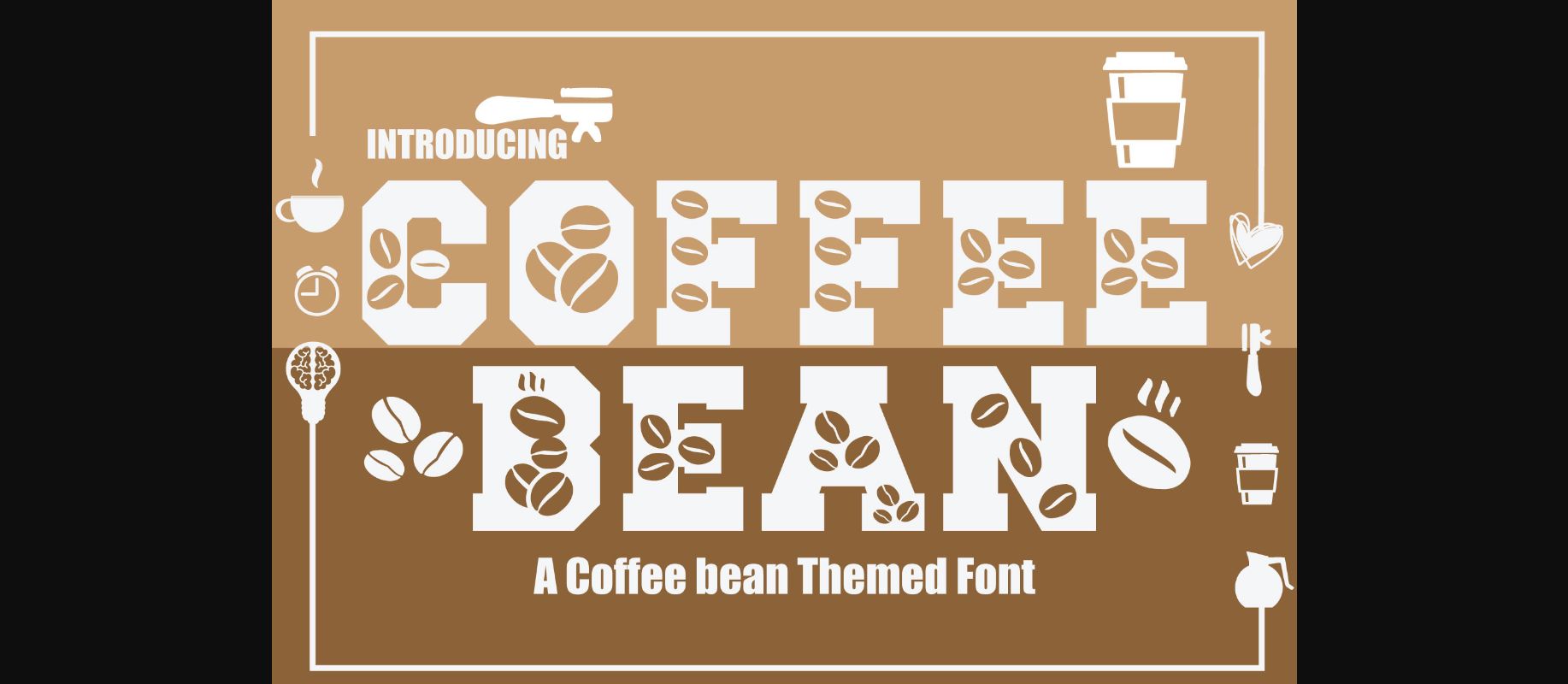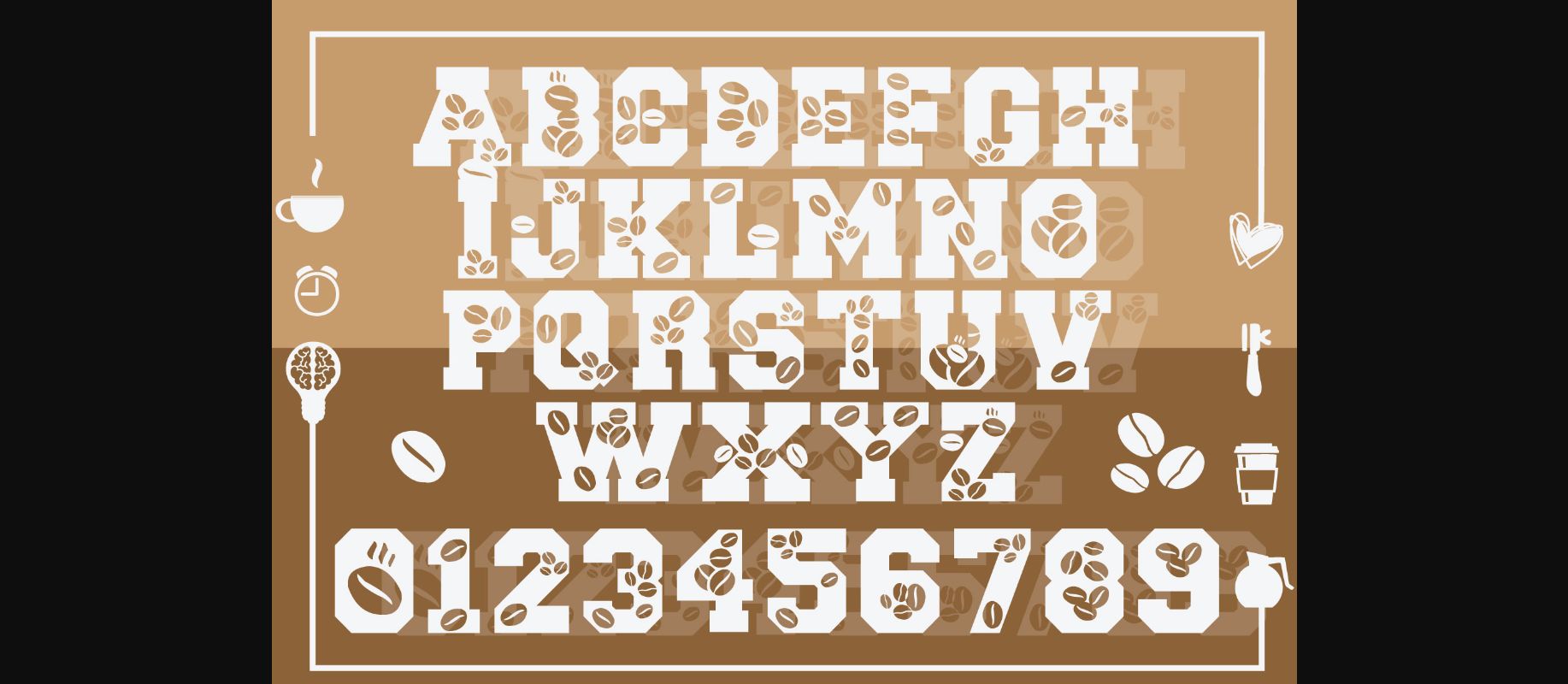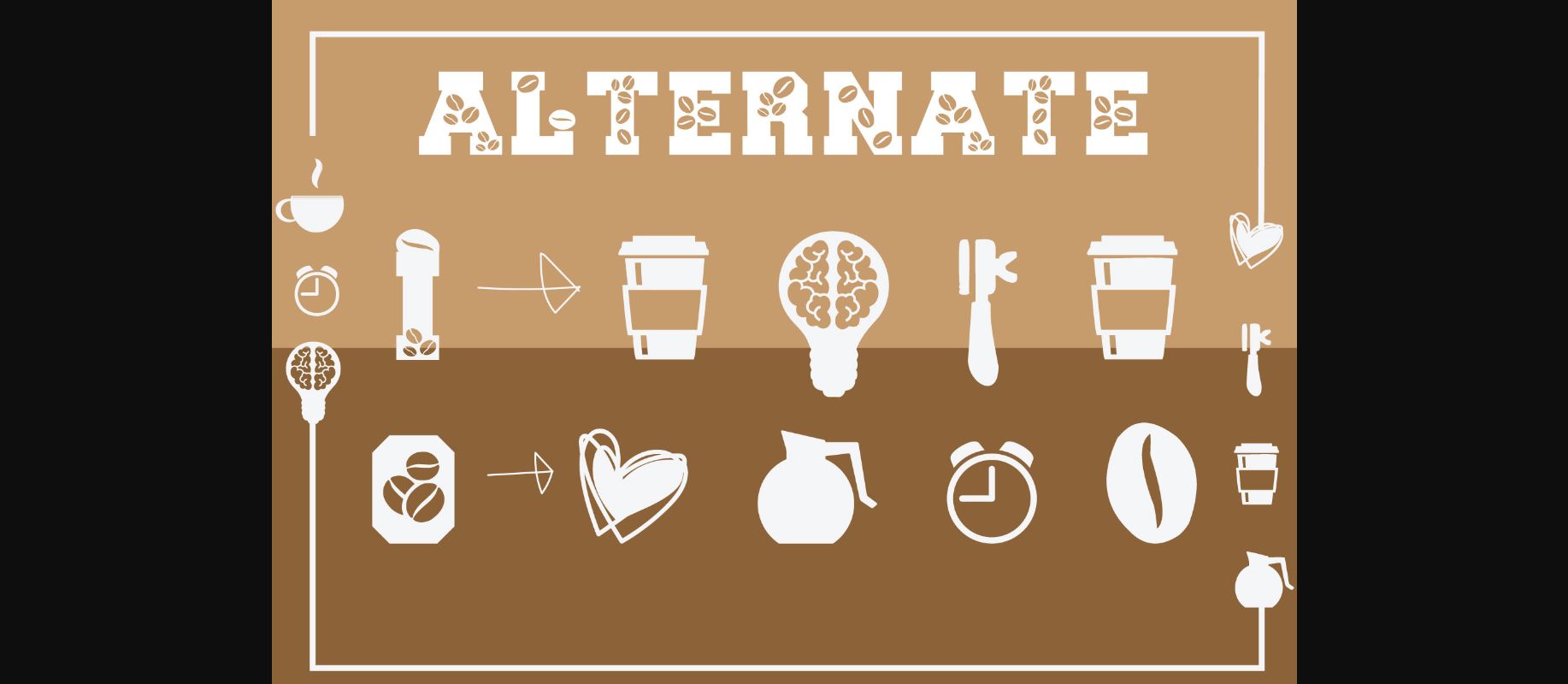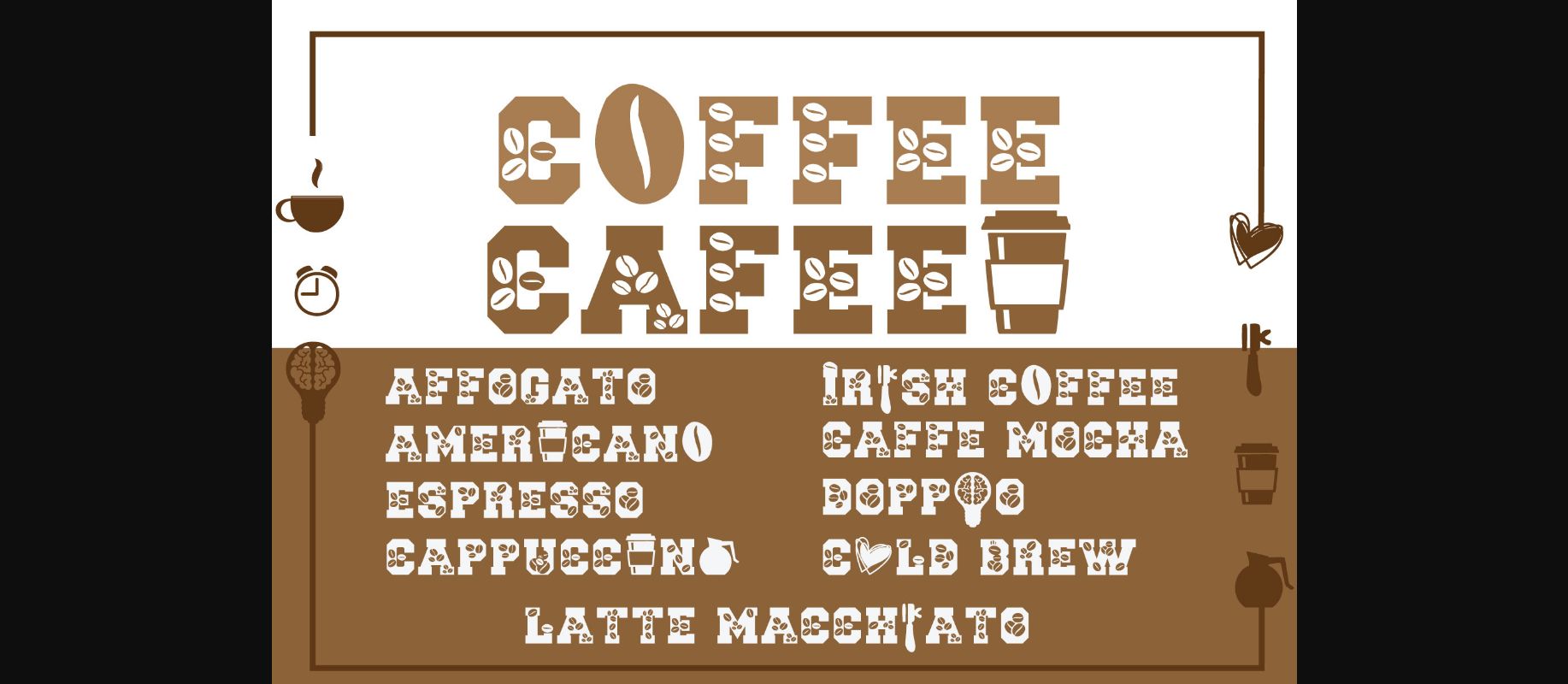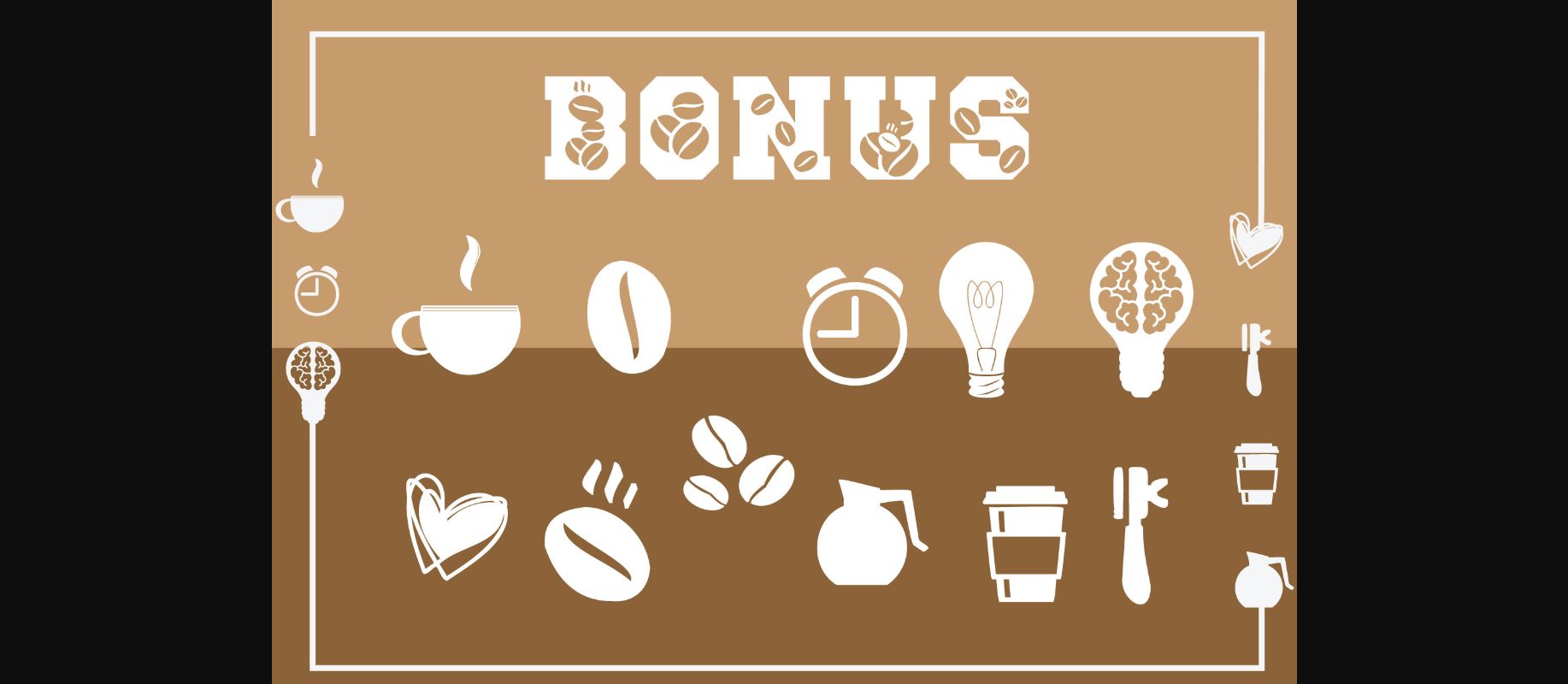
Coffee Bean Font
About Coffee Bean Font
Coffee Bean is a cool decorative font, featuring coffee beans. It embodies playfulness and authenticity and is the perfect choice for any children activity or school project.